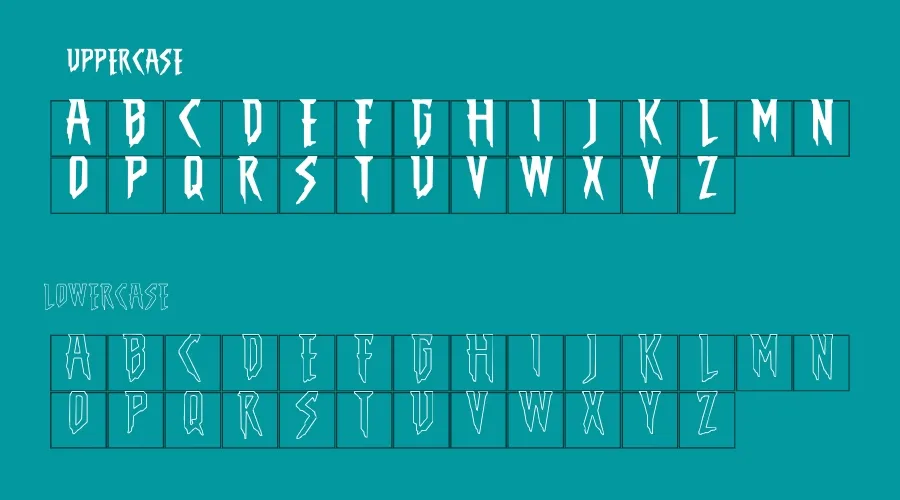
Spiderman Font
About Spiderman Font
Hmeneses is the creator of the spiderman font which is a movie font and its free version is available to download here. As well as having a readable texture and a unique appearance, this typeface is attractive. And is perfect for logos, branding projects, homeware packaging, and all sorts of other lovely ventures that require a beautiful look.
As a result, your text and designs can be styled in an eye-catching manner. With this typeface, you can create charming and impressive designs.
You can get the biggest results by picking out this typeface from the family. Presentations, reports, banners, posters, content, product titles, etc.
Are all suitable for this font the generator tool of this typeface is used in graphic design projects. this typeface is often used to create stunning and readable results. It can be used anywhere where you want to create a new signature.